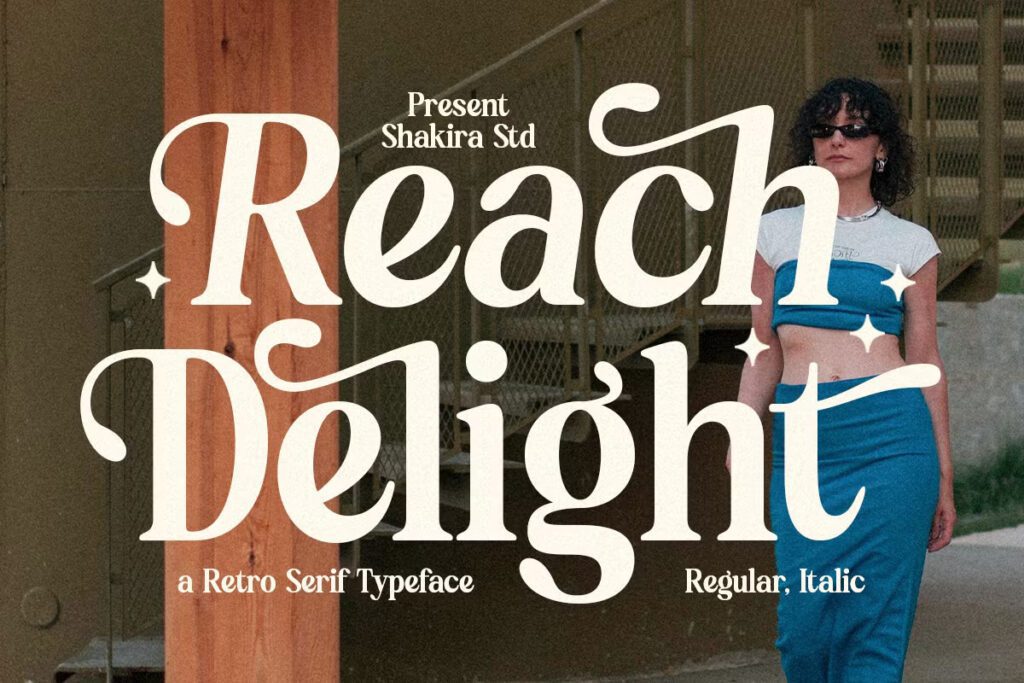
Reach Delight – A Perfect Blend of Retro Aesthetics and Modern Design
Introducing Reach Delight, a stunning modern retro serif display font that merges vintage charm with contemporary design versatility. Whether you’re looking to elevate your branding projects, create eye-catching editorial layouts, or design standout social media graphics, Reach Delight offers the timeless appeal that ensures your typography makes a lasting impact.
Why Reach Delight Stands Out
Retro Meets ModernReach Delight is a perfect combination of retro inspiration and modern design. With its elegant serif letterforms and stylish details, this font captures the essence of vintage aesthetics while maintaining a fresh, contemporary vibe.
Stylish Alternates and LigaturesReach Delight comes loaded with alternates and ligatures, allowing for endless creative possibilities. Customize your typography effortlessly to create unique looks, adding personality and flair to your projects.
Regular and Italic StylesThe font family includes both Regular and Italic styles, providing flexibility in your design choices. Whether you’re aiming for a bold headline or an elegant italic subheading, Reach Delight delivers stunning results.
Key Features of Reach Delight
Two Styles: Regular & Italic, offering versatility across different design contexts.
OpenType Features: Includes ligatures and alternates to enhance your design’s uniqueness.
Multilingual Support: Extensive support for various languages, ensuring your messages reach a global audience.
Perfect For
Branding: Create memorable logos and brand identities with Reach Delight’s striking retro-modern design.
Editorial Design: Ideal for magazine spreads, book covers, and any other editorial projects that need bold and stylish typography.
Social Media Graphics: Ensure your posts stand out with a font that brings personality and elegance to your visuals.
Posters and Invitations: Make your invitations, event posters, and announcements pop with the font’s retro charm and modern versatility.
Reach Delight brings a unique, timeless charm to your design projects, making it a must-have font for creatives looking to combine retro style with modern design aesthetics.